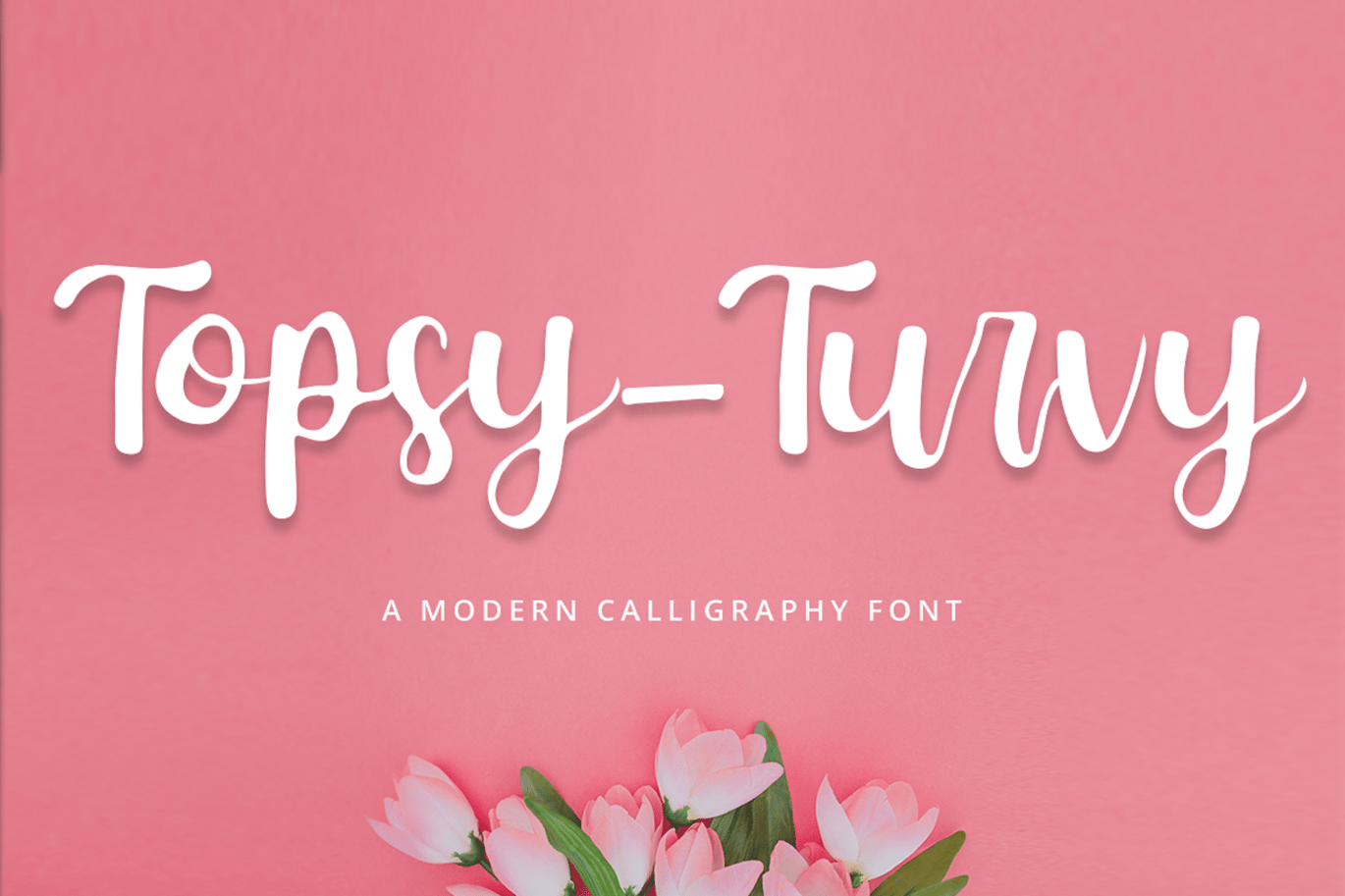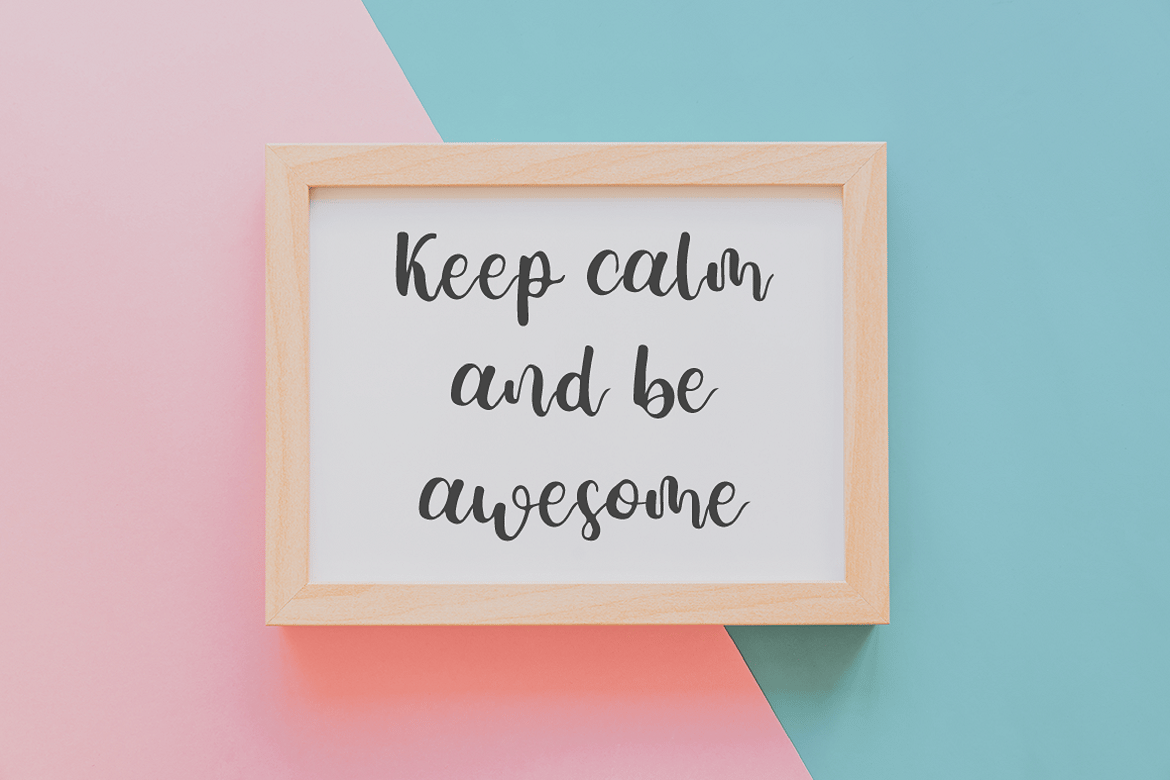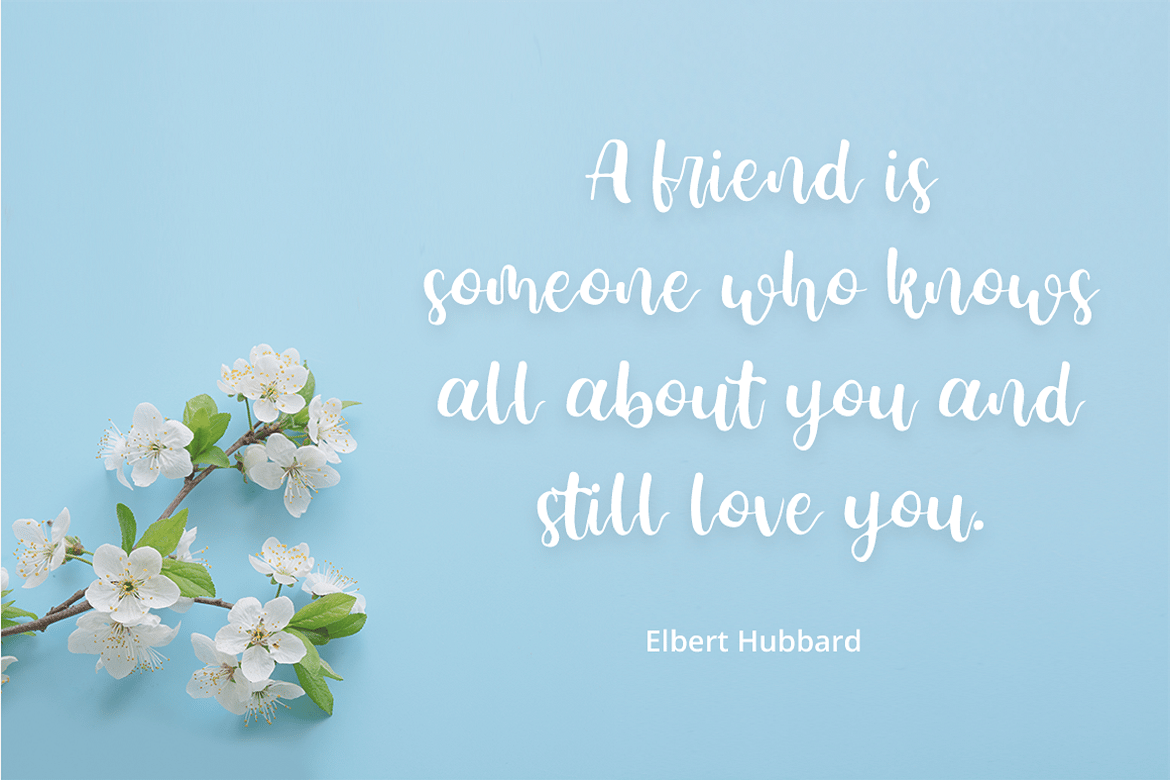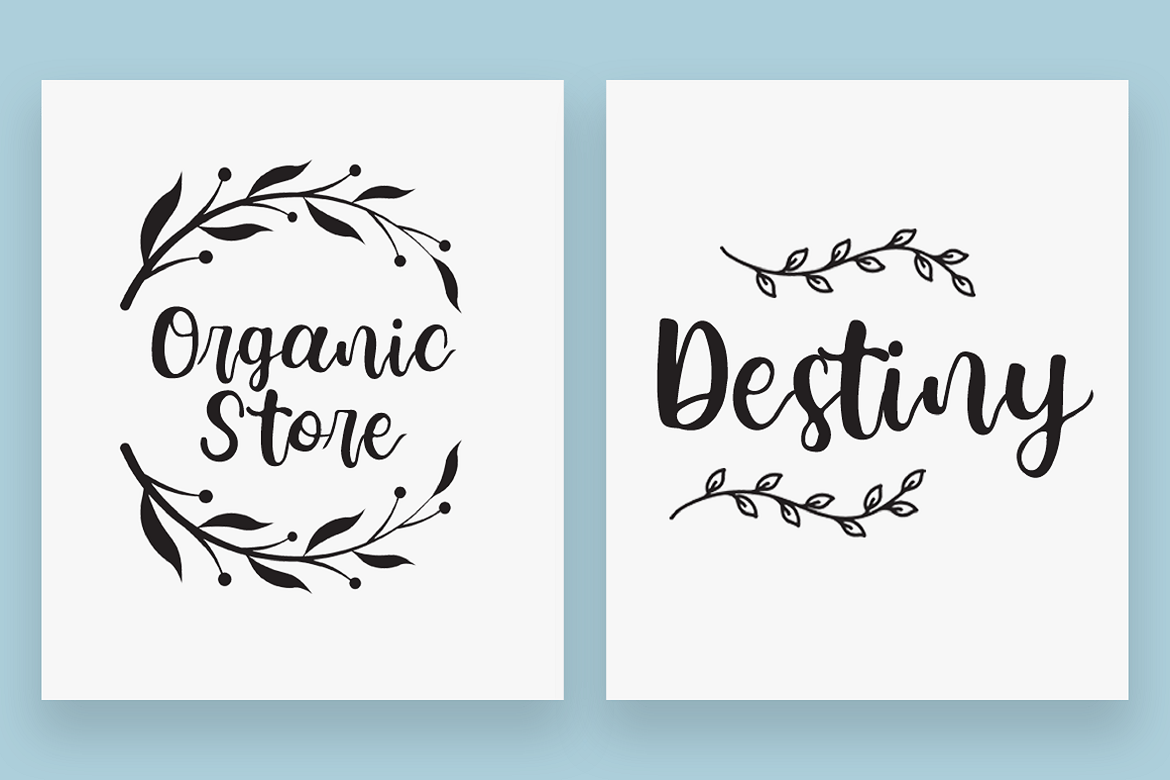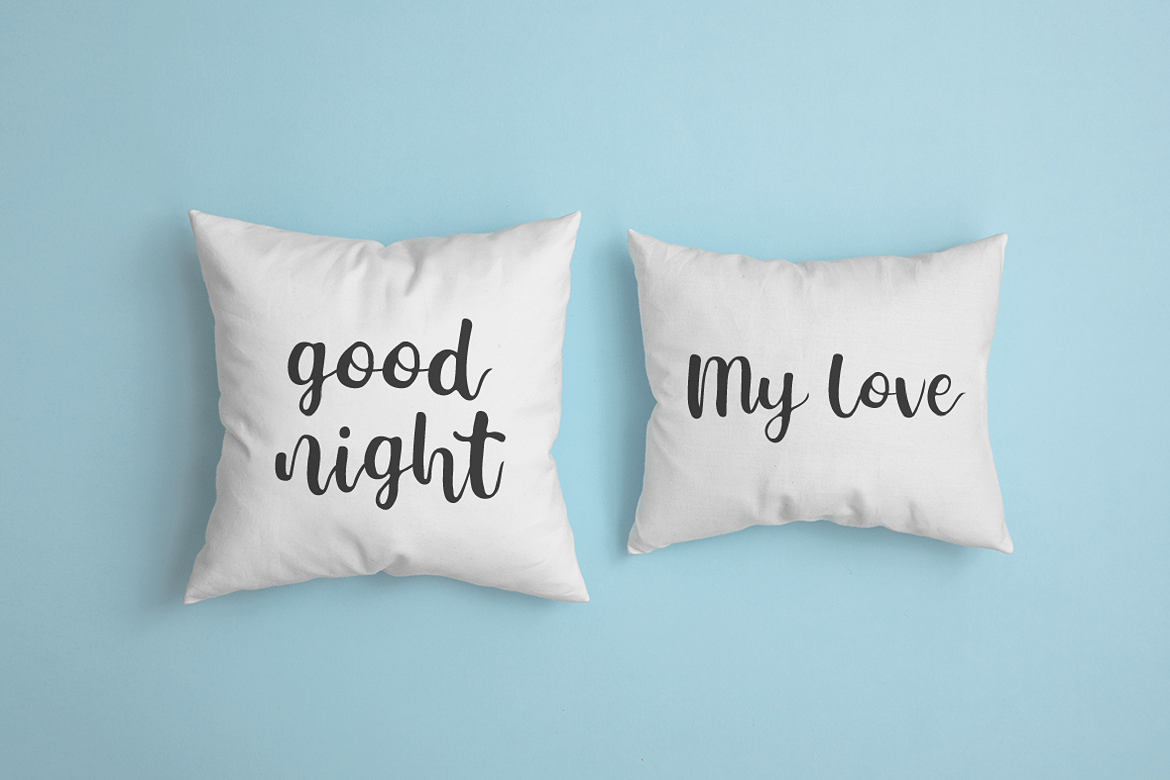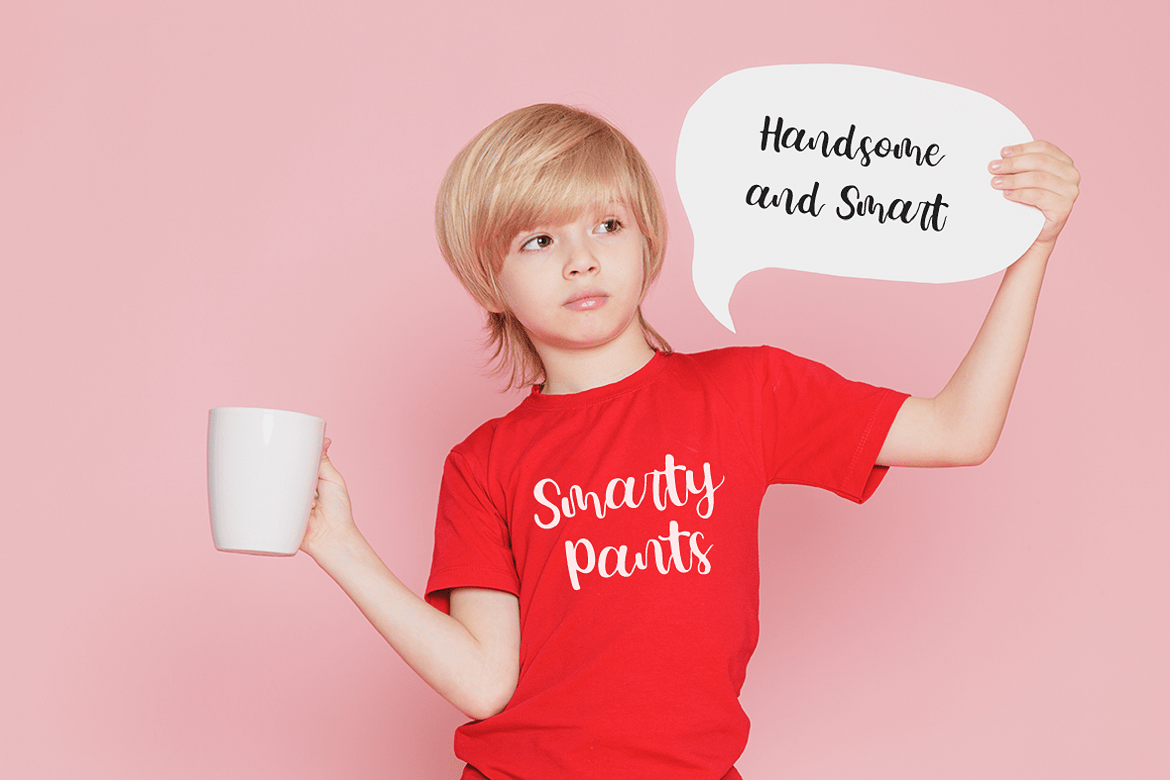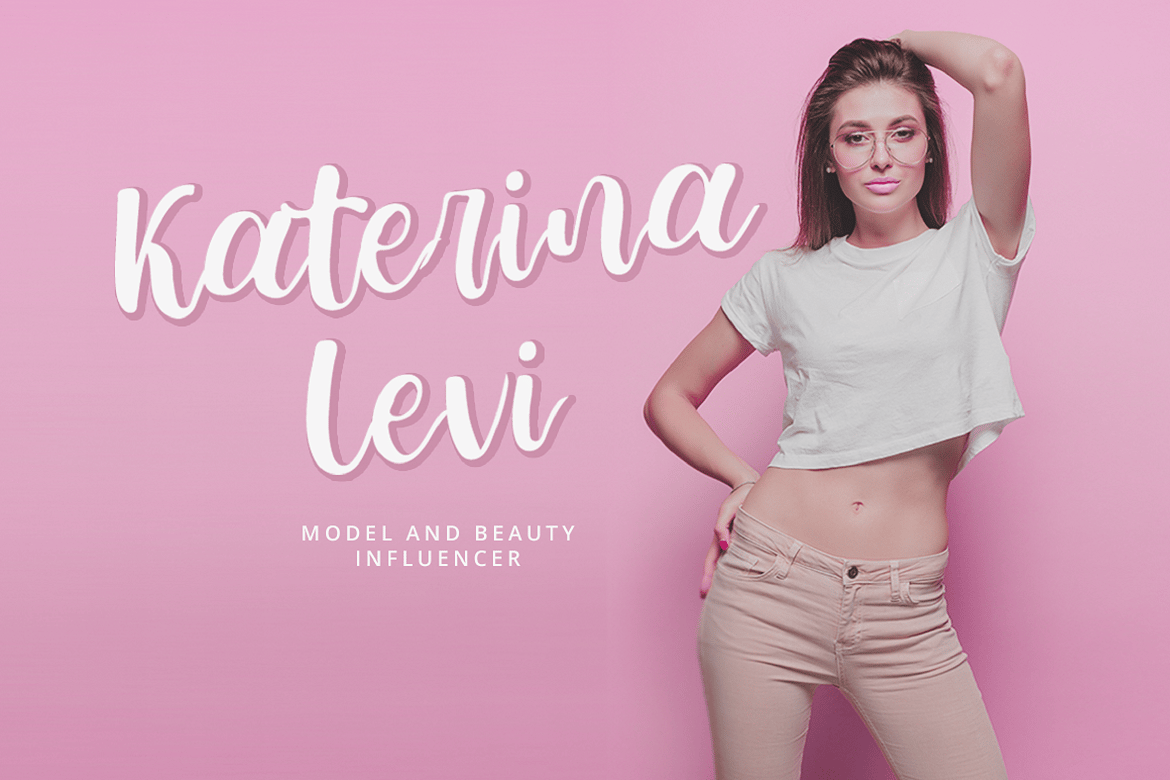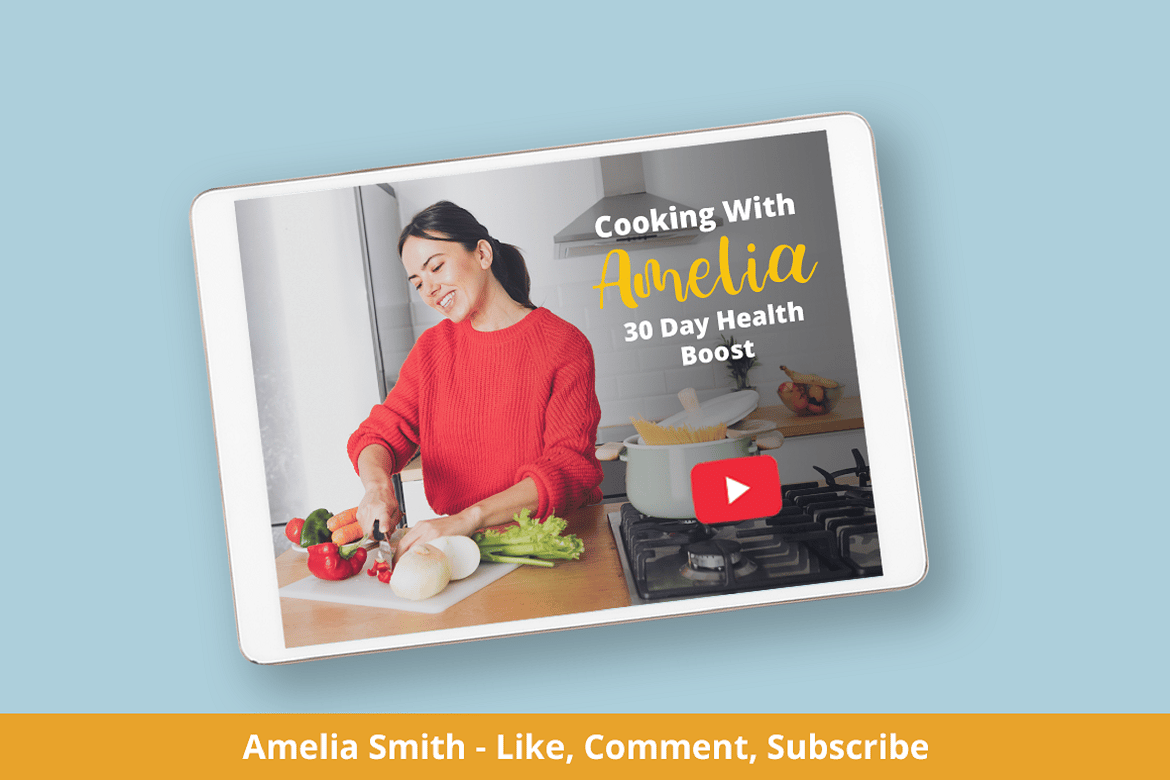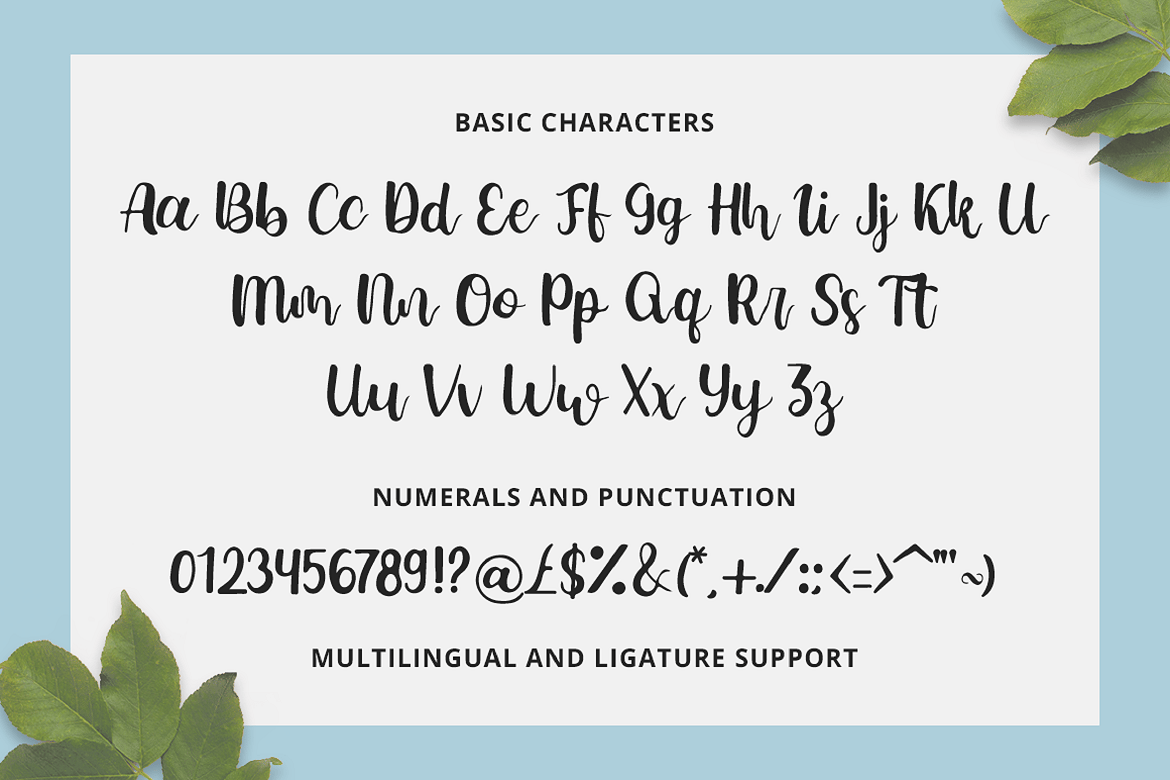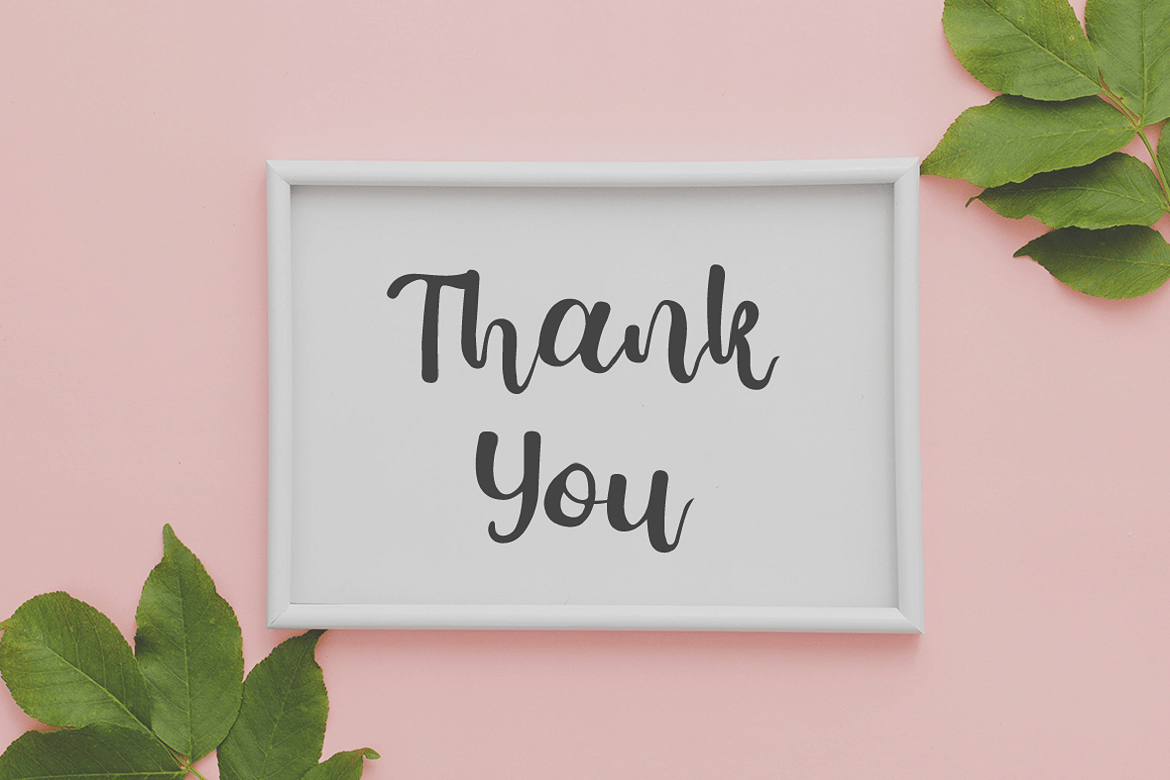
Feminine Curvy Script Font
Topsy-Turvy
Looking for a fun and versatile font to captivate your audience, clients, or guests?
Trying to create the perfect contrast between your titles/headings and body copy?
Maybe you’re a Beauty Influencer, Interior Designer, or run a Cooking YouTube channel – looking for a way to stand out from your competition. Maybe you feel like your birthday e-cards are missing that “something”.
If you can say “yes” to any of these then hold on to your seats and get ready for a modern, fun, and delightful experience!
Introducing Topsy-Turvy – A Modern Calligraphy Font.
This gorgeous, fun, and elegant font can be used for a host of different content needs and projects. Use it for your headings, logos, business cards, printed quotes, invitations, packaging, resumes, and even your website or social media branding.
Delight your audience, clients, or guests with this versatile, elegant font.
- Multilingual & Ligature Support
- Full sets of Punctuation and Numerals